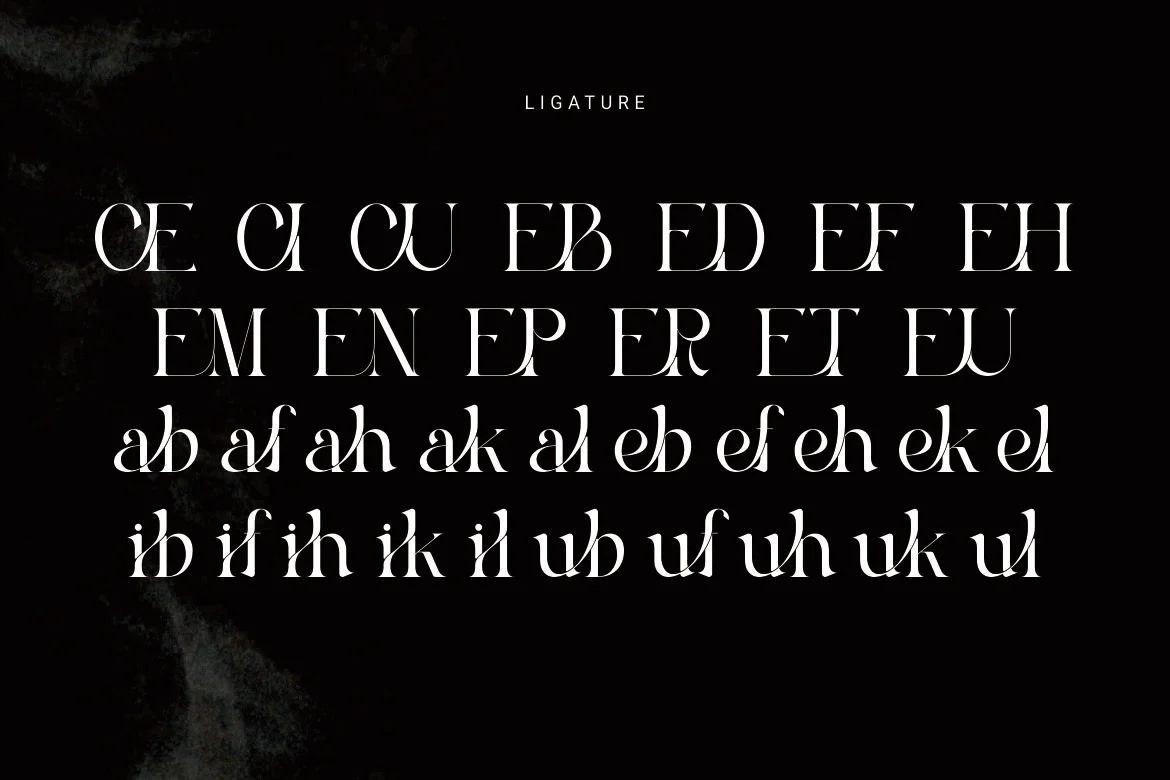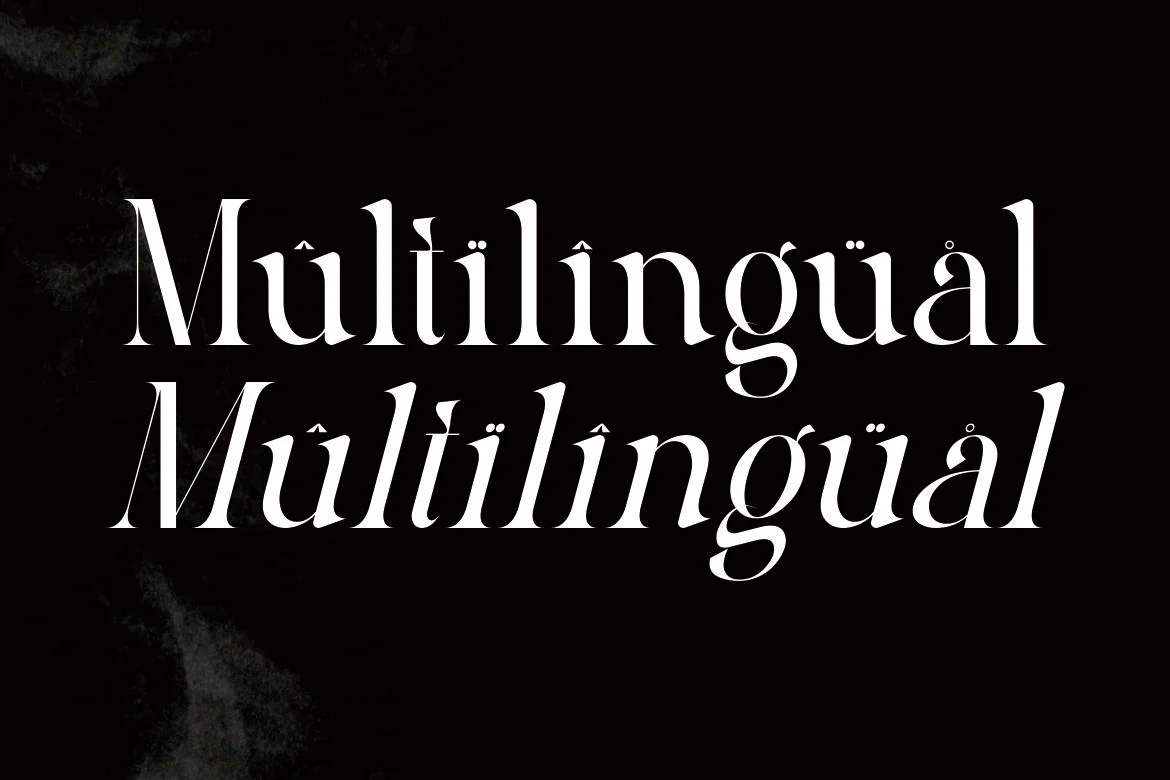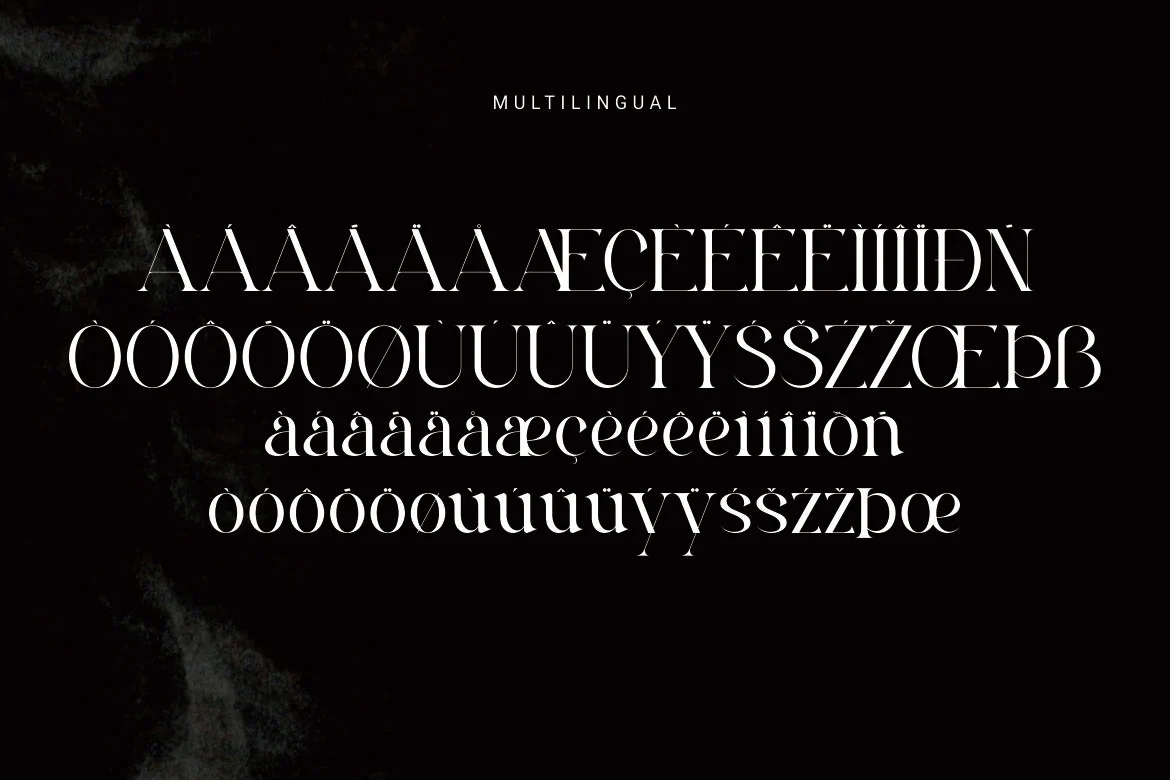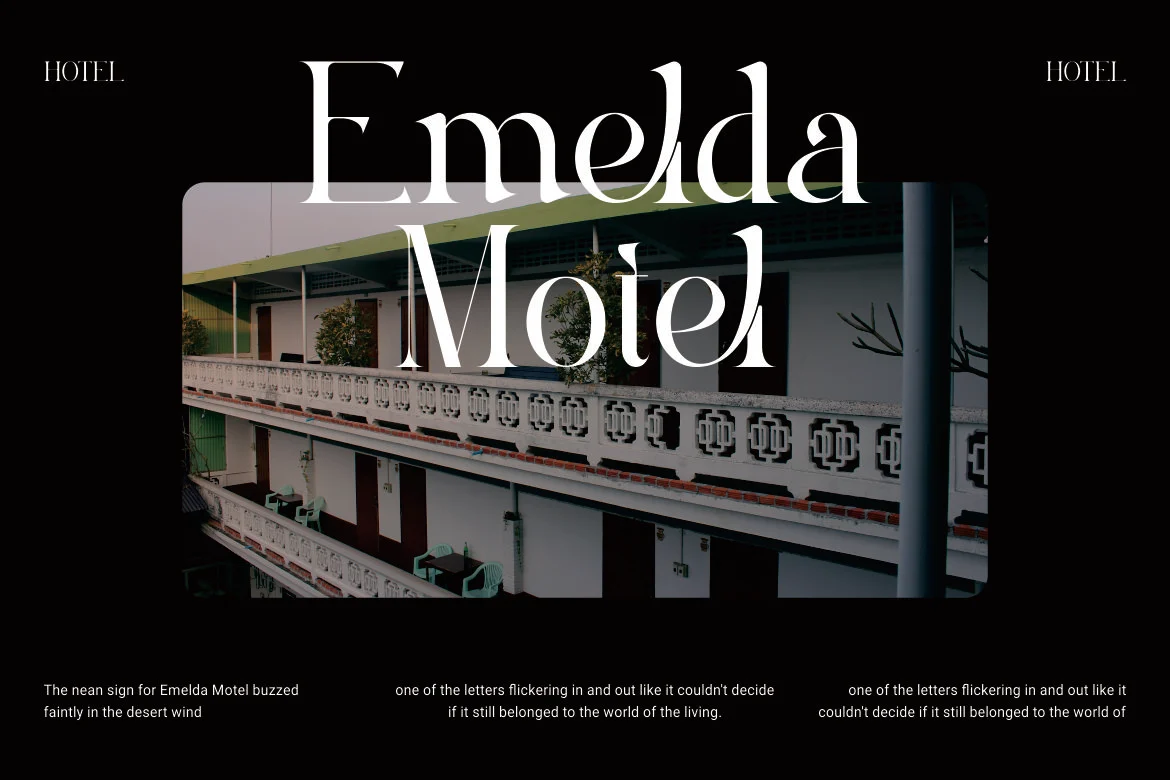
Bonna Font
Introducing Bonnan, a bold and modern condensed typeface. With its strong, impactful lines and unique cut details, Bonna is perfect for creating eye-catching headlines, logos, and posters. Its bold, blocky letters convey strength and confidence, making it ideal for projects that need to stand out and leave a lasting impression. Whether you're designing for advertising, fashion, or creative branding, Bonna robust, condensed style provides a versatile solution for enhancing visual impact.
**Features:
* Uppercase
* Lowercase
* Numeral & Punctuation
* Ligatures